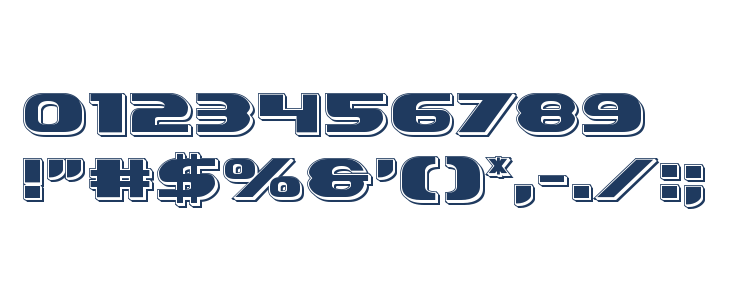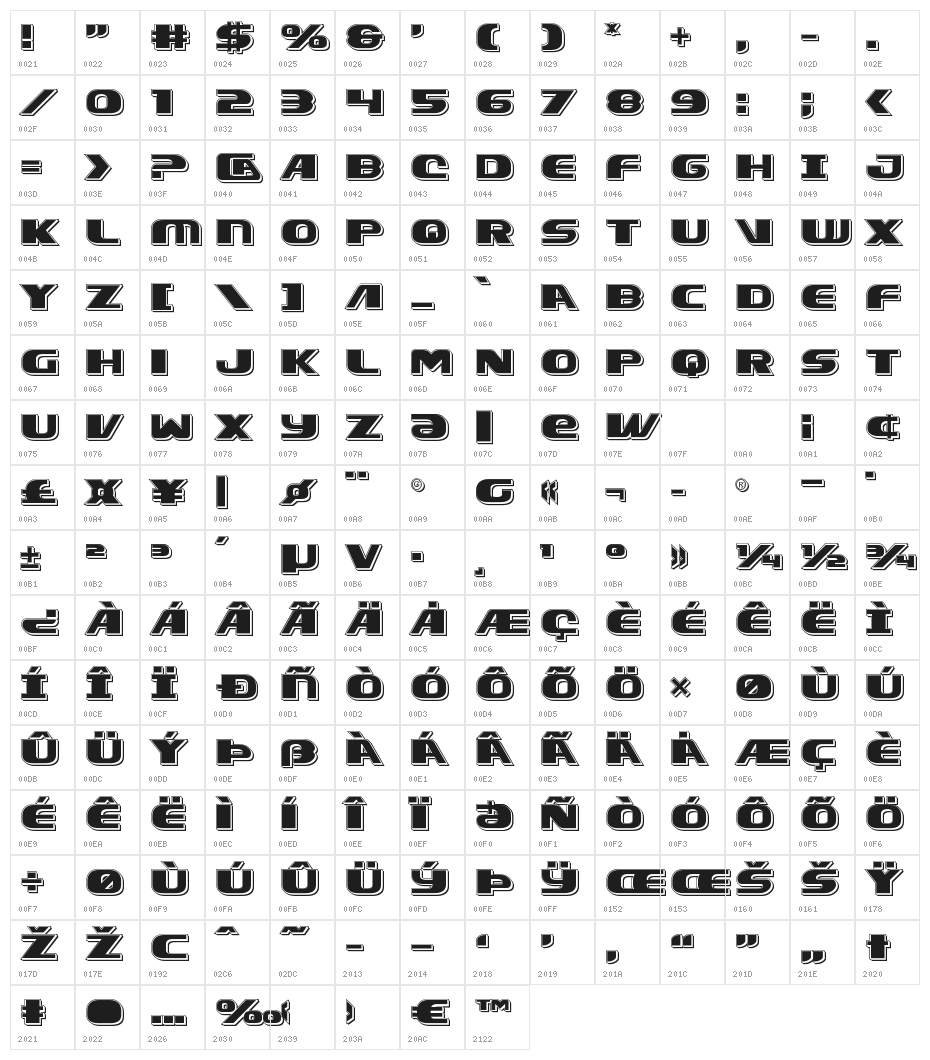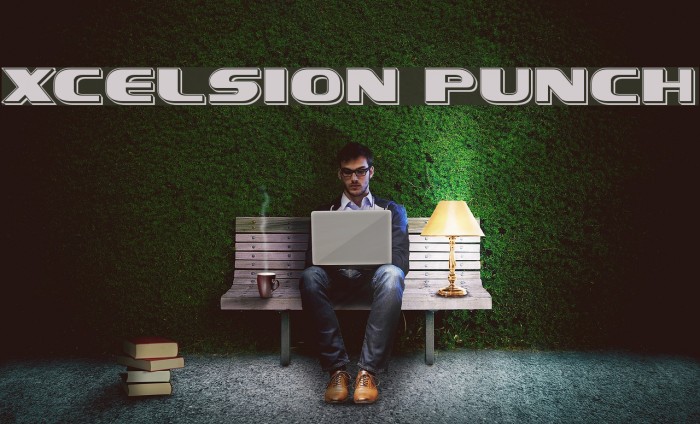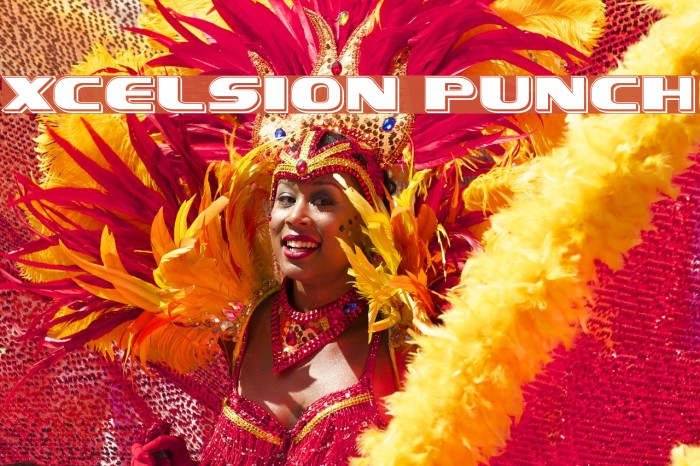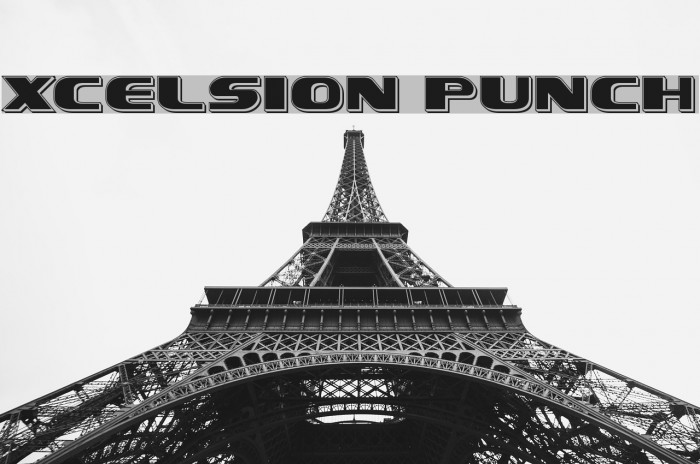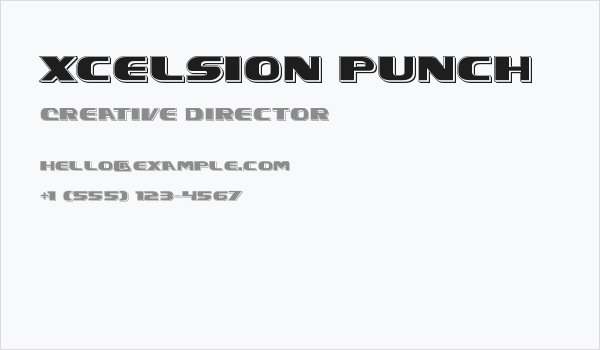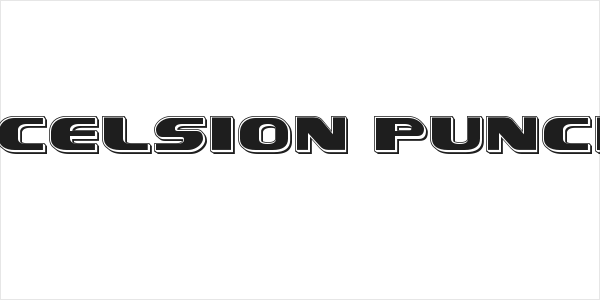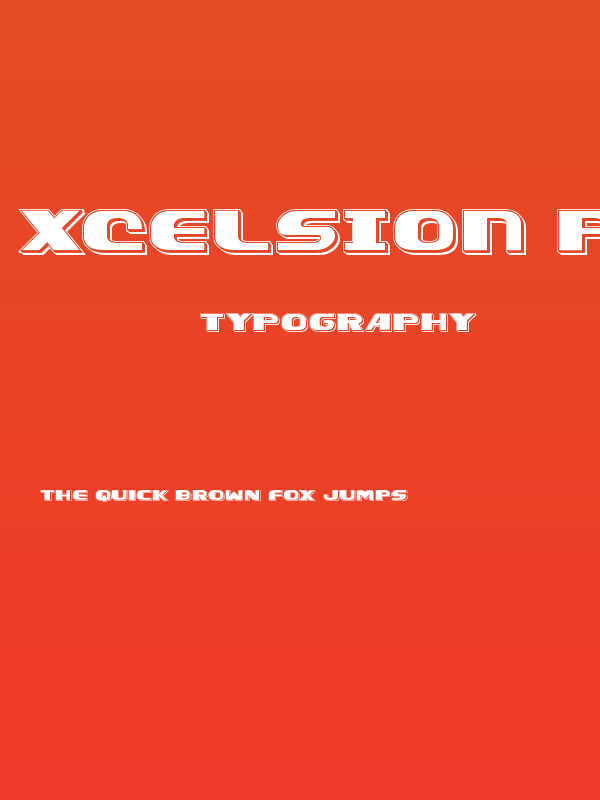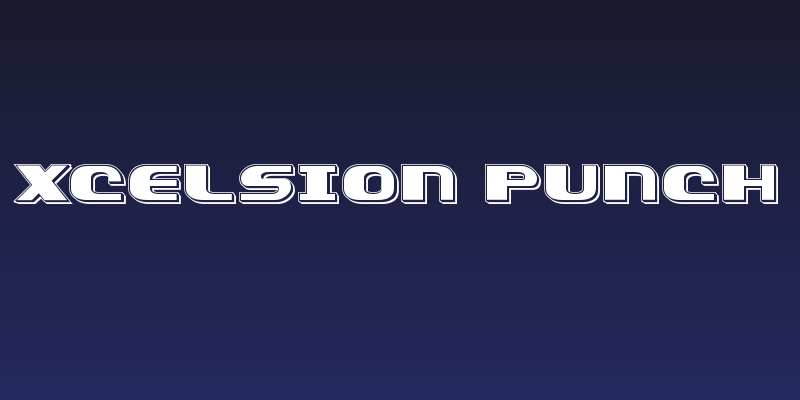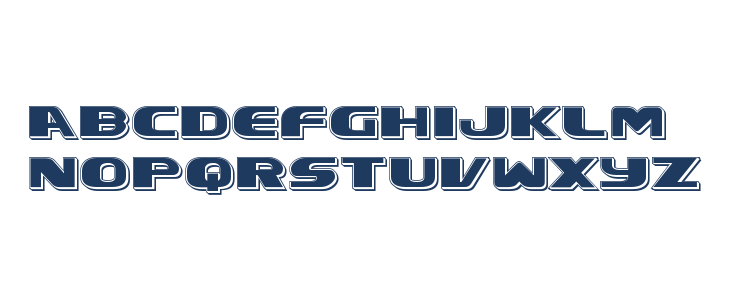
Xcelsion Punch Font
Xcelsion Punch Description
This font features a bold and dynamic style with a strong presence, characterized by its thick, blocky letters and a distinct outline that adds depth and dimension. The uppercase and lowercase letters maintain a consistent width, creating a uniform appearance. The numbers and special characters follow the same design principles, ensuring a cohesive look across all glyphs. The font's geometric shapes and sharp angles give it a modern and futuristic feel, making it suitable for attention-grabbing designs. Its high contrast between the thick strokes and the thin outlines enhances readability while maintaining a striking visual impact.
| Proposed Projects | Ideal for headlines, posters, logos, and branding materials that require a strong visual impact. |